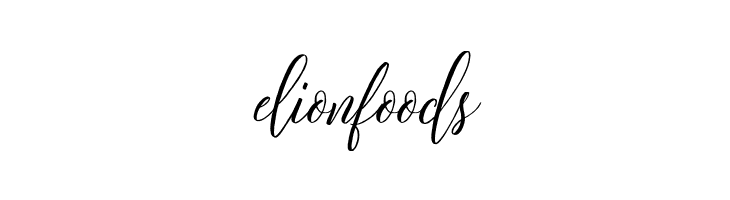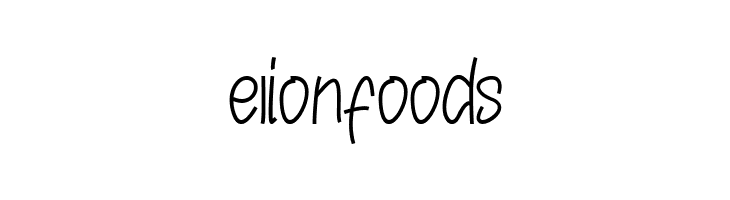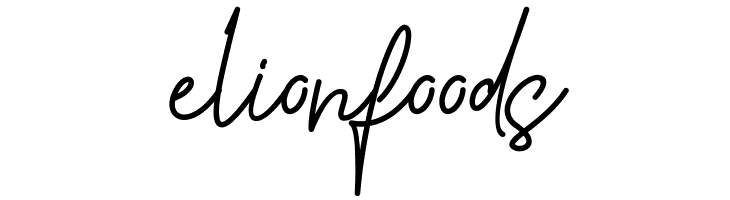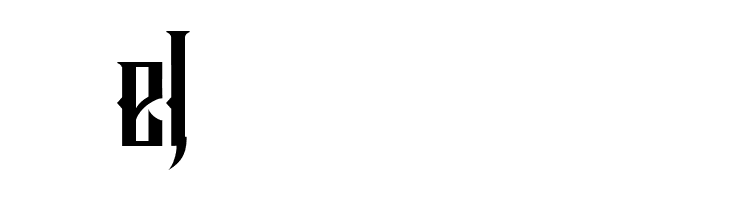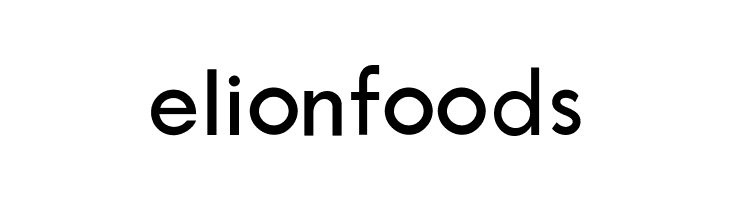
An elegant, flowing script font with a natural handwriting style.
A playful, handwritten font with smooth, consistent strokes and a casual style.
A playful, rounded font with bold, smooth curves and consistent spacing.
A playful, rounded font with bold, smooth curves.
A bold, modern sans-serif font with clean lines and strong presence.
A bold, angular font with a gothic influence and high contrast.
A graceful script font with flowing, connected strokes and elegant curves.